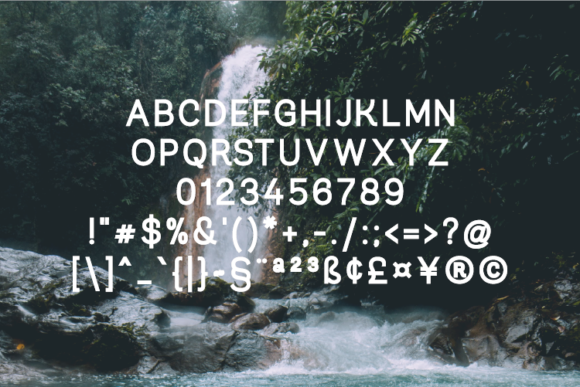
Introduction to Hazeline Font
Imagine you’re working on a creative project, and you need a font that perfectly complements your design without overpowering it. You’ve spent hours searching for the perfect typeface, but nothing seems to fit your vision. That’s when you stumble upon Hazeline Font, a simple and elegant sans serif font that will make your design shine.
Hazeline Font is more than just a design resource – it’s a game-changer for designers who value high-quality typography. With its clean and beautiful arrangement of letters, this typeface is perfect for both formal and non-formal designs. Whether you’re working on a project with a transparent background or a complex layout, Hazeline Font is sure to deliver.
Key Features of Hazeline Font
- High-quality design resource with a transparent background, perfect for creative projects
- Includes a range of characters and glyphs, making it suitable for a variety of creative applications
- Designed with a clean and modern aesthetic, Hazeline Font is ideal for use in logos, branding, and other visual identities
- Font size: 1,000 characters, including uppercase and lowercase letters, numbers, and punctuation
- Resolution: 300 DPI, ensuring crisp and clear rendering in various sizes and resolutions
- Unique characteristic: Hazeline Font features a distinctive, elegant feel that sets it apart from other sans-serif fonts
Honest Review: Hazeline Font
I recently stumbled upon the Hazeline Font, a design resource that caught my attention. As a designer, I’m always on the lookout for high-quality fonts that can elevate my creative projects. And let me tell you, Hazeline Font is definitely a contender.
- ✨ High-quality design that exudes elegance and sophistication
- ✨ Versatile font that can be used for a variety of creative projects, from logos to headings
- ✨ Transparent background, allowing for easy editing and customization
- ⚠️ Limited character set, which may not be ideal for extensive text-based projects
- ⚠️ May not be suitable for body text, due to its decorative nature
Overall, I’m impressed with the Hazeline Font. While it may not be perfect for every project, it’s a great addition to any designer’s toolkit. Its high-quality design and versatility make it a valuable resource for creative projects. And the best part? It’s free to download!
Tips for Getting the Most Out of Hazeline Font
Hazeline Font is perfect for a variety of creative projects, including logos, branding materials, and marketing campaigns. Its high-quality design and free download make it an ideal design resource for any project. Whether you’re working on a logo or a brochure, Hazeline Font is sure to add a touch of sophistication and elegance to your design.